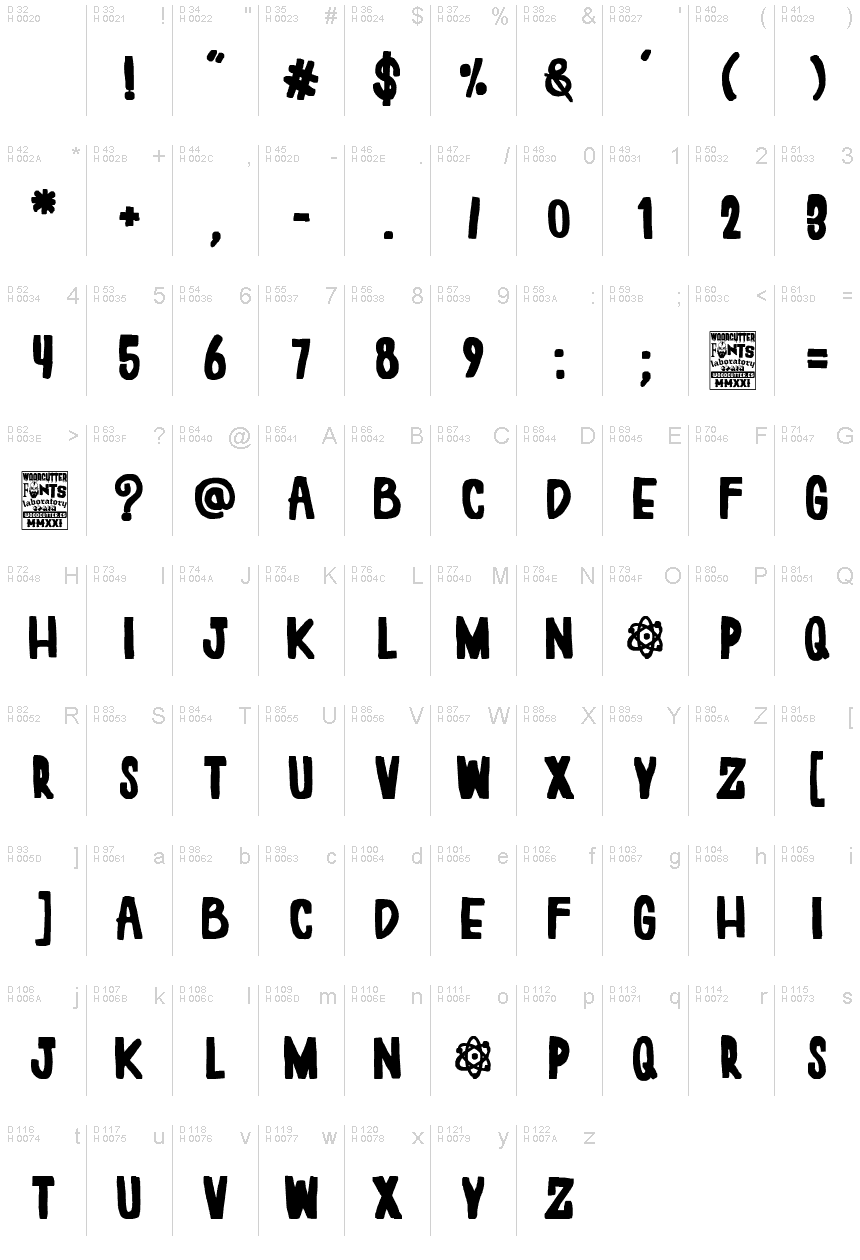
Atomic Love
Atomic Love is a bold and playful display font designed by Woodcutter Manero. With its cartoon-style and eye-catching design, this font is perfect for adding a fun and vibrant feel to your projects. Whether you're designing a children's book, creating a playful brand logo, or crafting a social media post, Atomic Love is the perfect choice for any project that needs a touch of whimsy and charm.